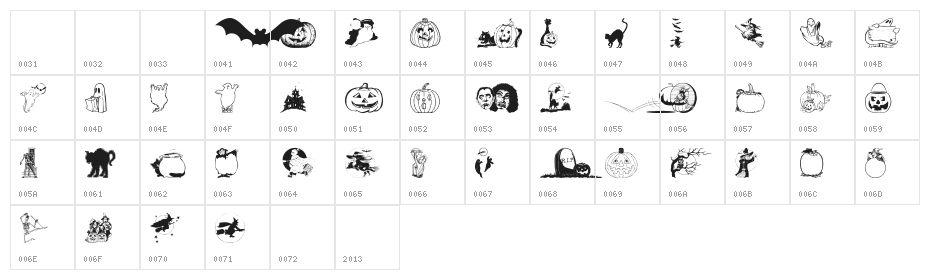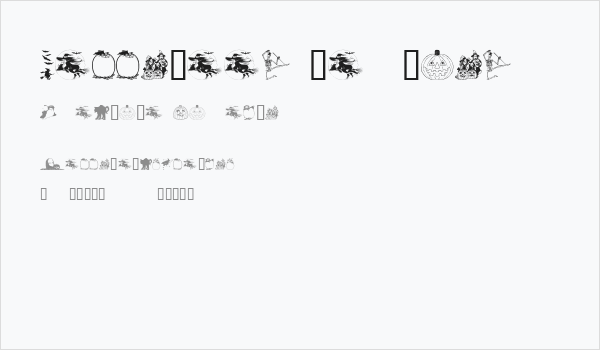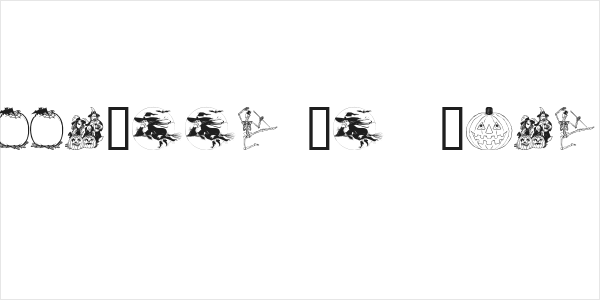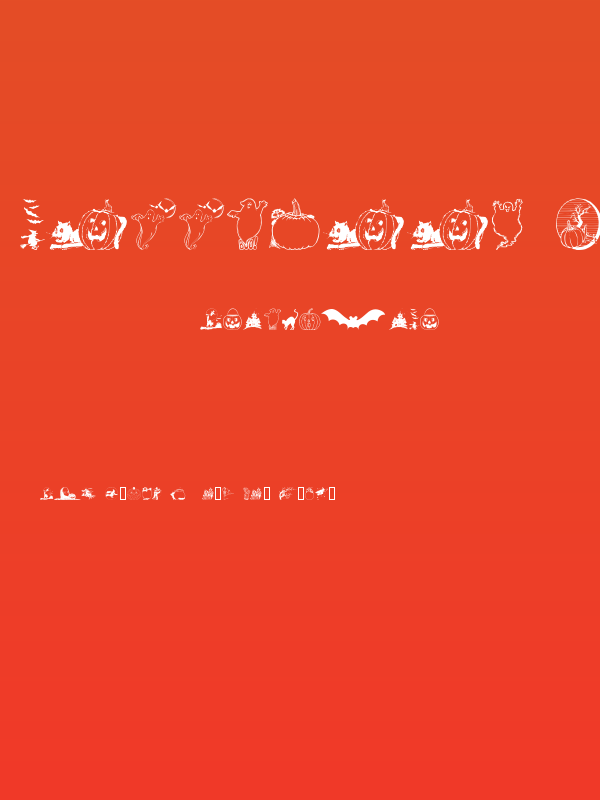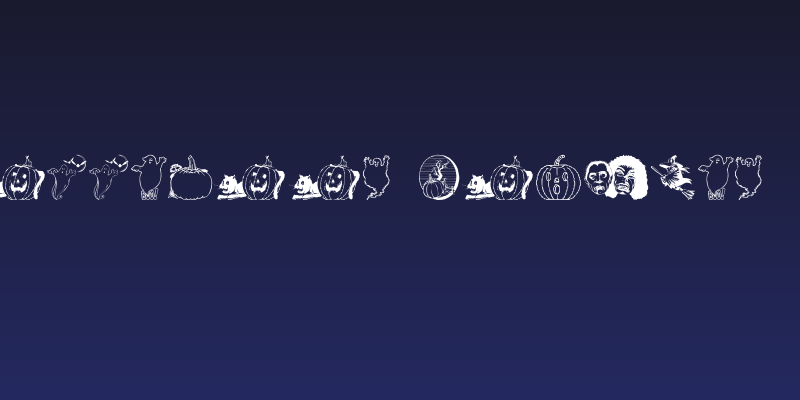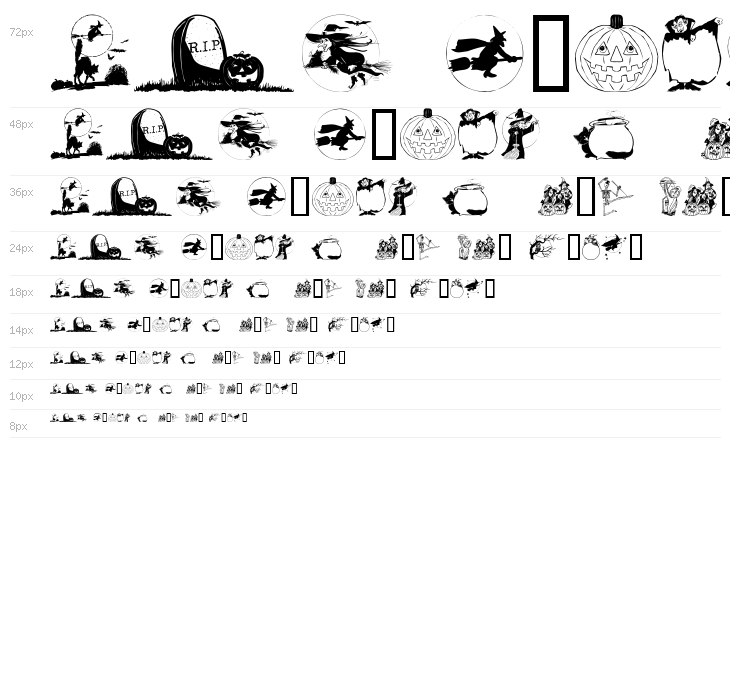
Helloween version 2 Font
Helloween version 2 Description
A decorative dingbat font featuring a variety of Halloween-themed illustrations such as bats, pumpkins, witches, ghosts, black cats, gravestones, and other spooky motifs. Each character is represented by a unique Halloween icon rather than a traditional letter or number.
| Overall Style | Decorative, Thematic, Playful |
| Use Case | Decorative elements, Icons, Themed graphics |
| Proposed Projects | Party invitations, event flyers, seasonal decorations, scrapbooking, social media graphics, themed posters. |